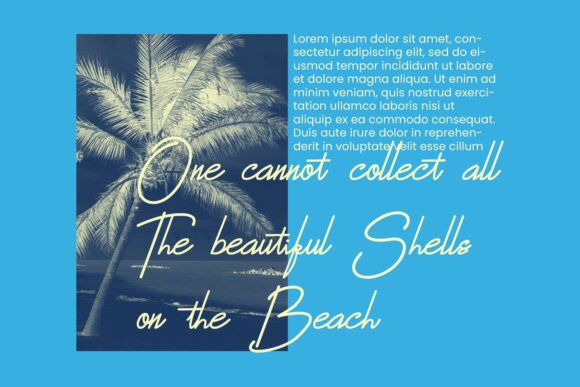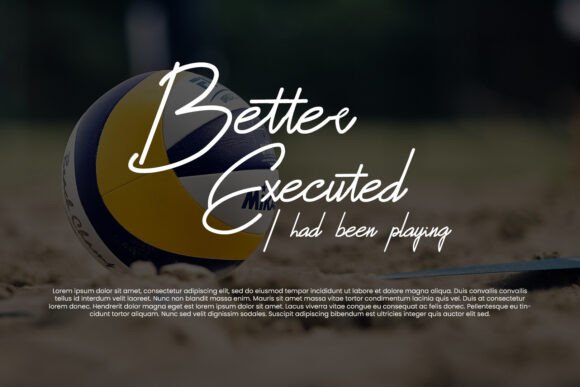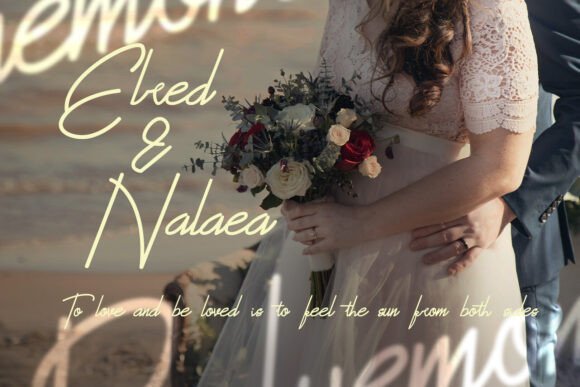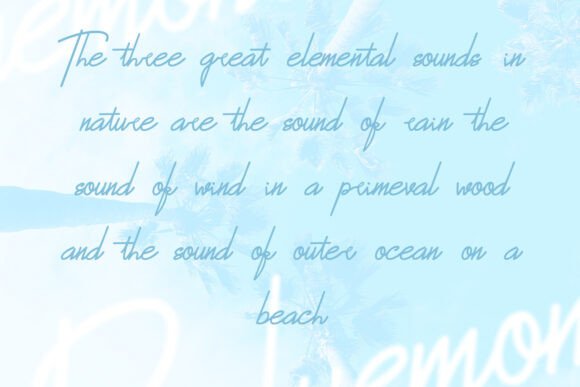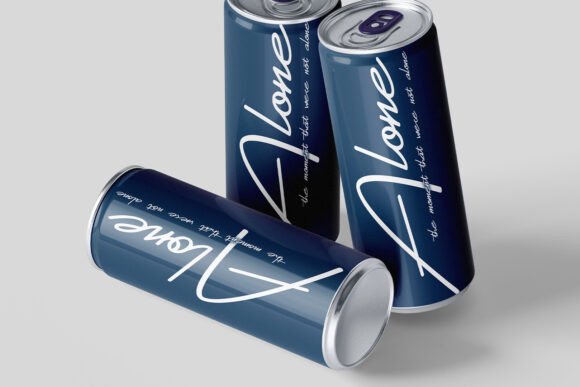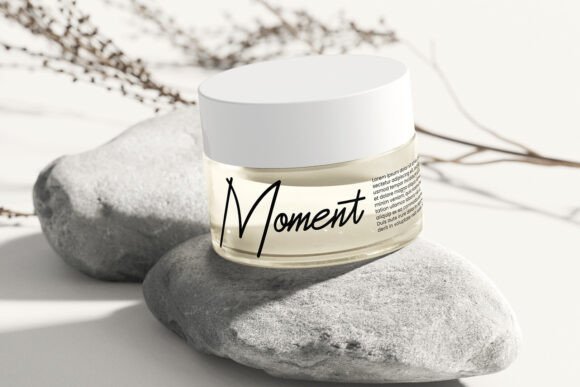
The Bluemono Font: A Stylish and Elegant Script for Creative Projects
I’ll never forget the time I was working on a wedding invitation design project, and I just couldn’t seem to find the perfect font. The client wanted something elegant and sophisticated, but also playful and romantic. I spent hours scouring the internet, trying out different fonts, but nothing seemed quite right. That was until I stumbled upon the Bluemono font. ✨
As soon as I saw it, I knew I had found the one. The flowing script letters, the delicate connections, and the whimsical flair at the ends of the strokes all came together to create a font that was both stylish and incredibly elegant. I used it for the wedding invitations, and the client loved it. But I soon discovered that Bluemono was more than just a one-trick pony – it was a versatile font that could be used for a wide range of creative projects.
An Honest Review of Bluemono
• ✨ Elegant and sophisticated, yet playful and romantic
• 💫 Beautifully crafted with attention to detail
• 🎨 Versatile and can be used for a wide range of creative projects
While Bluemono is an amazing font, it’s not without its quirks. 🤔 For example, some users have reported issues with kerning, particularly when using the font at very small sizes. ⚠️ Additionally, the font doesn’t come with a built-in bold weight, which may be a limitation for some users.
The Backstory of Bluemono
Bluemono was designed by a team of typographers who wanted to create a font that was both elegant and approachable. The font’s creator was inspired by the flowing script letters of traditional calligraphy, but wanted to create a font that was more modern and versatile. The result is a font that’s perfect for creative projects that need a touch of sophistication and whimsy.
Q: What is Bluemono?
A: Bluemono is a stylish and elegant script font that’s perfect for creative projects that need a touch of sophistication and whimsy.
Q: What kind of projects can I use Bluemono for?
A: Bluemono is versatile and can be used for a wide range of creative projects, including wedding invitations, thank you cards, quotes, greeting cards, logos, business cards, and more.
Q: Is Bluemono easy to read?
A: Yes, Bluemono is highly legible, even at small sizes. The font’s elegant and refined design makes it perfect for designs that need a touch of sophistication.